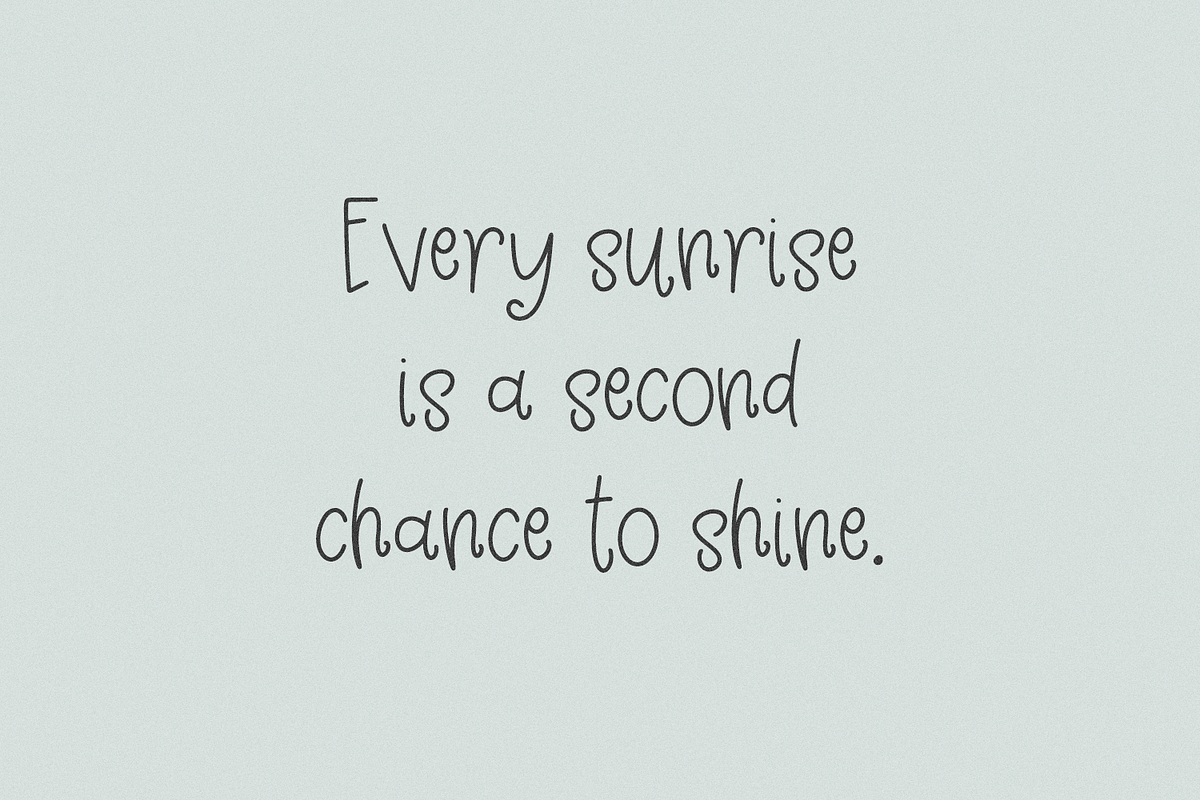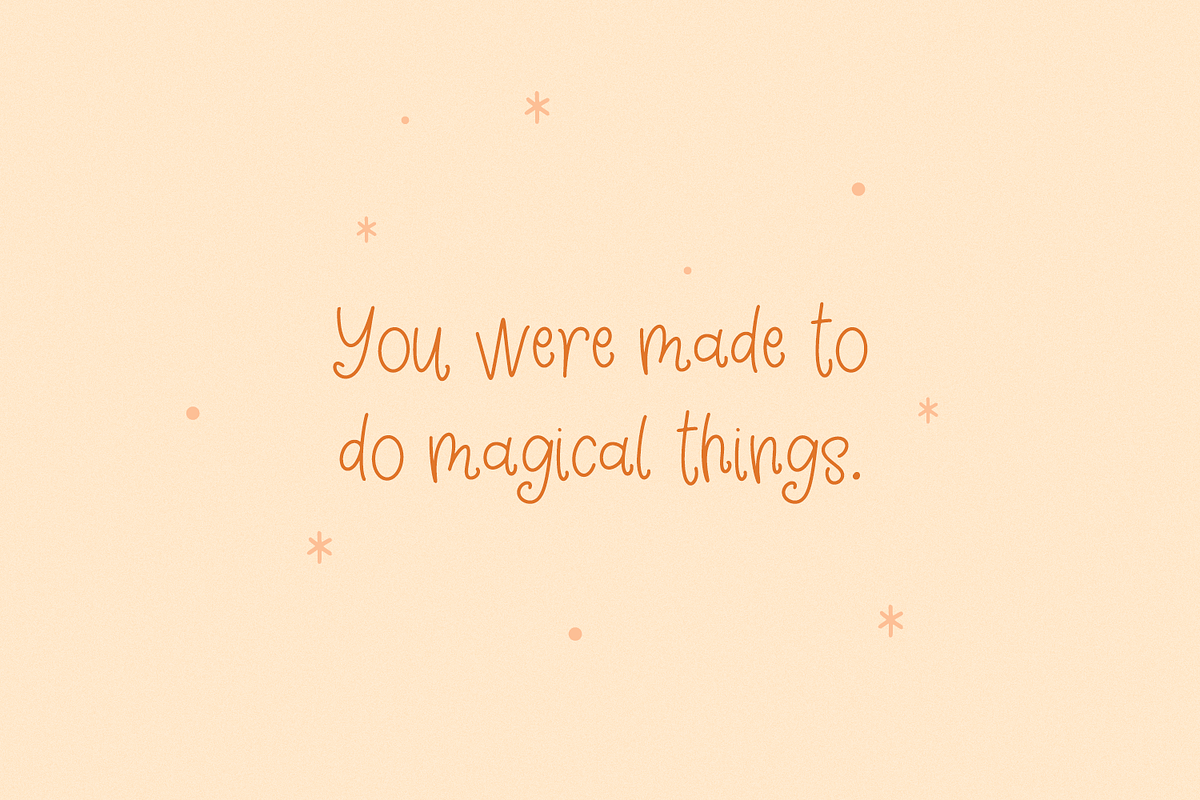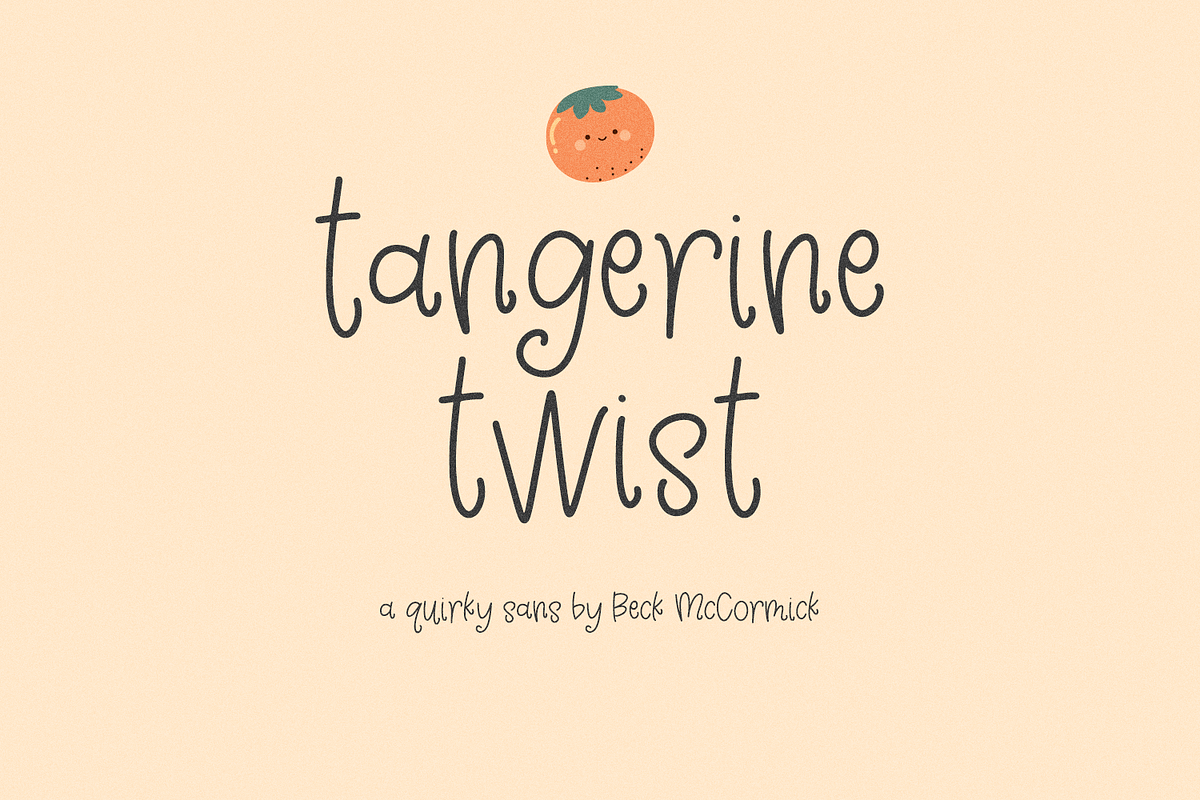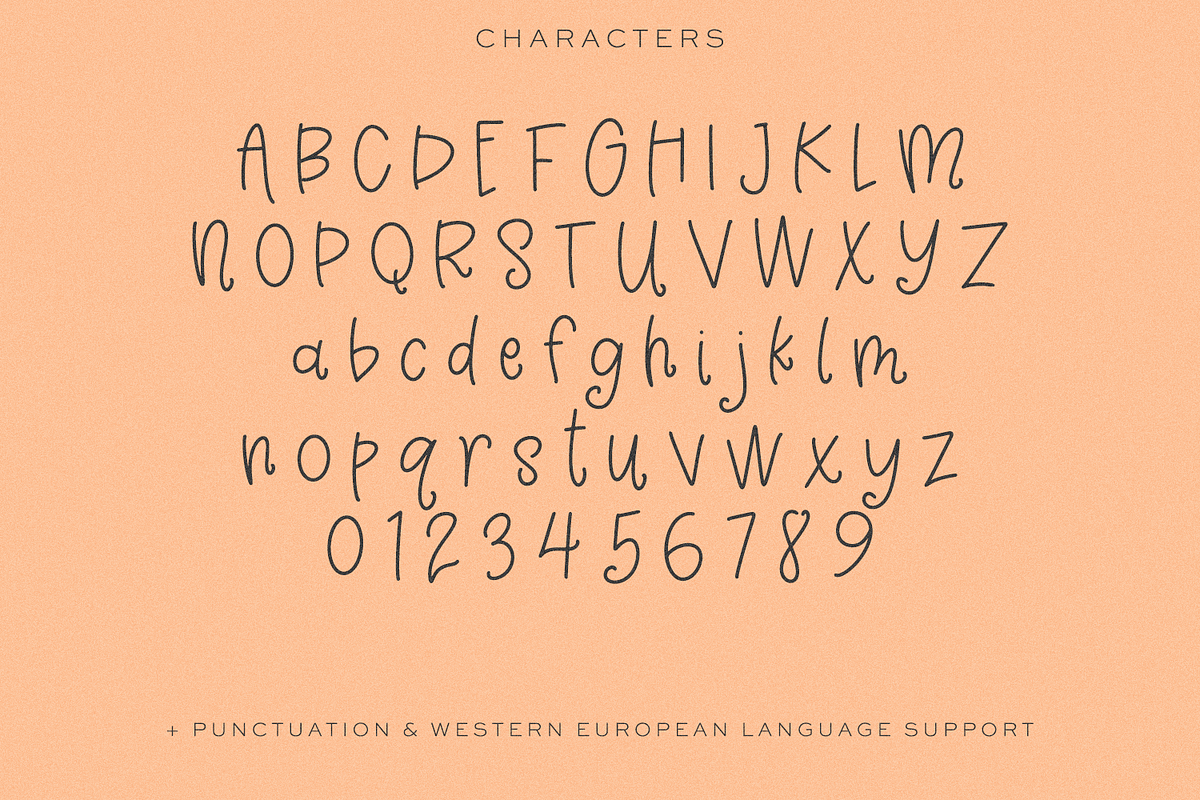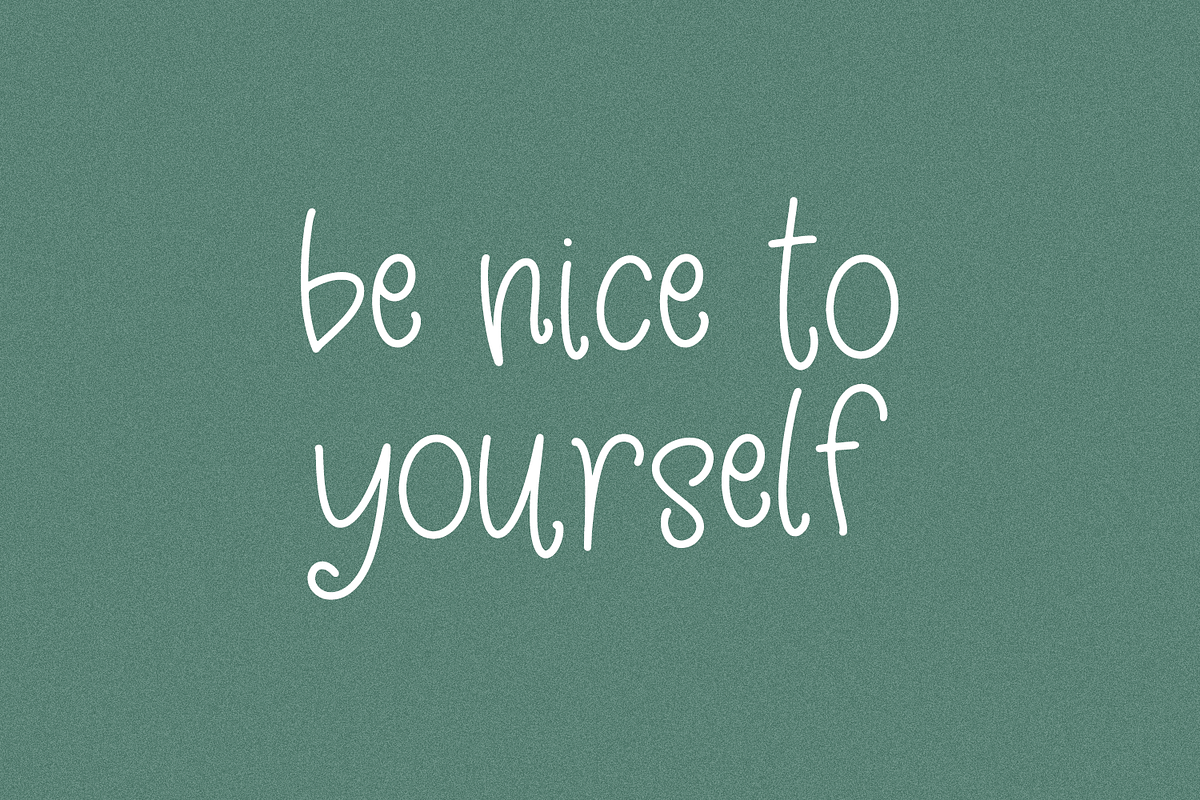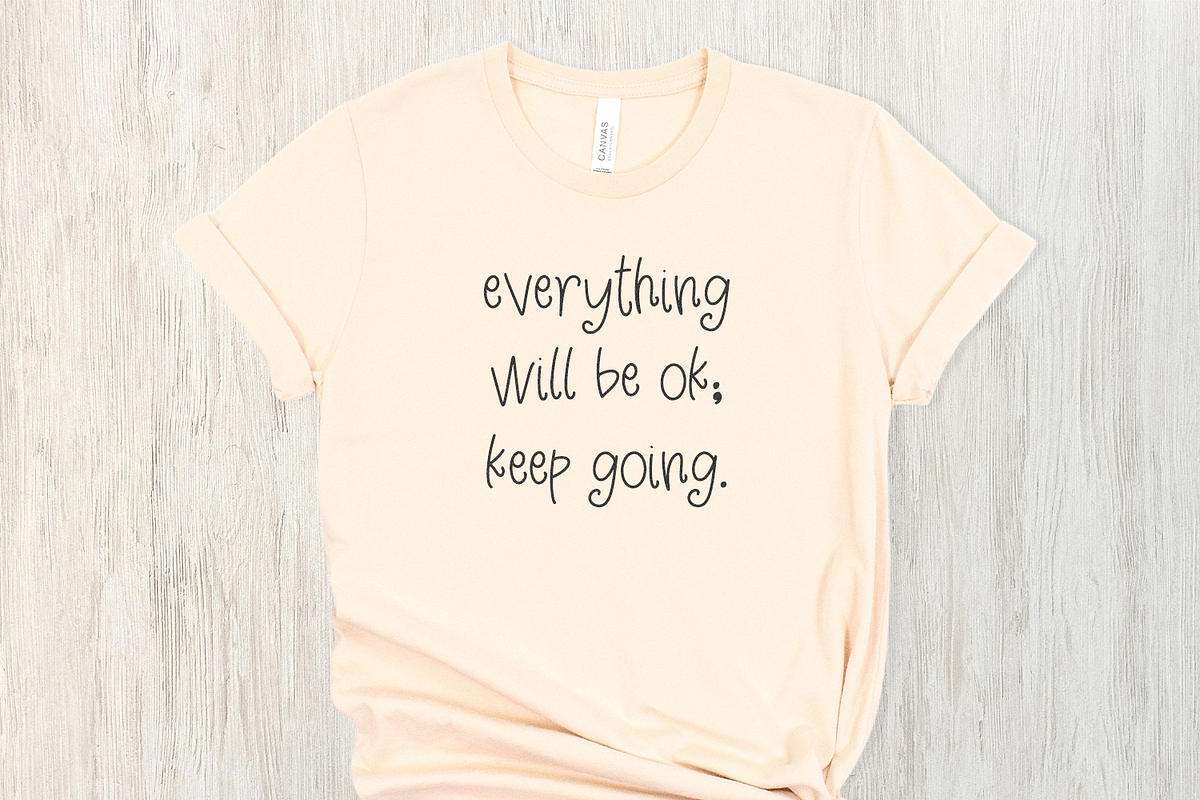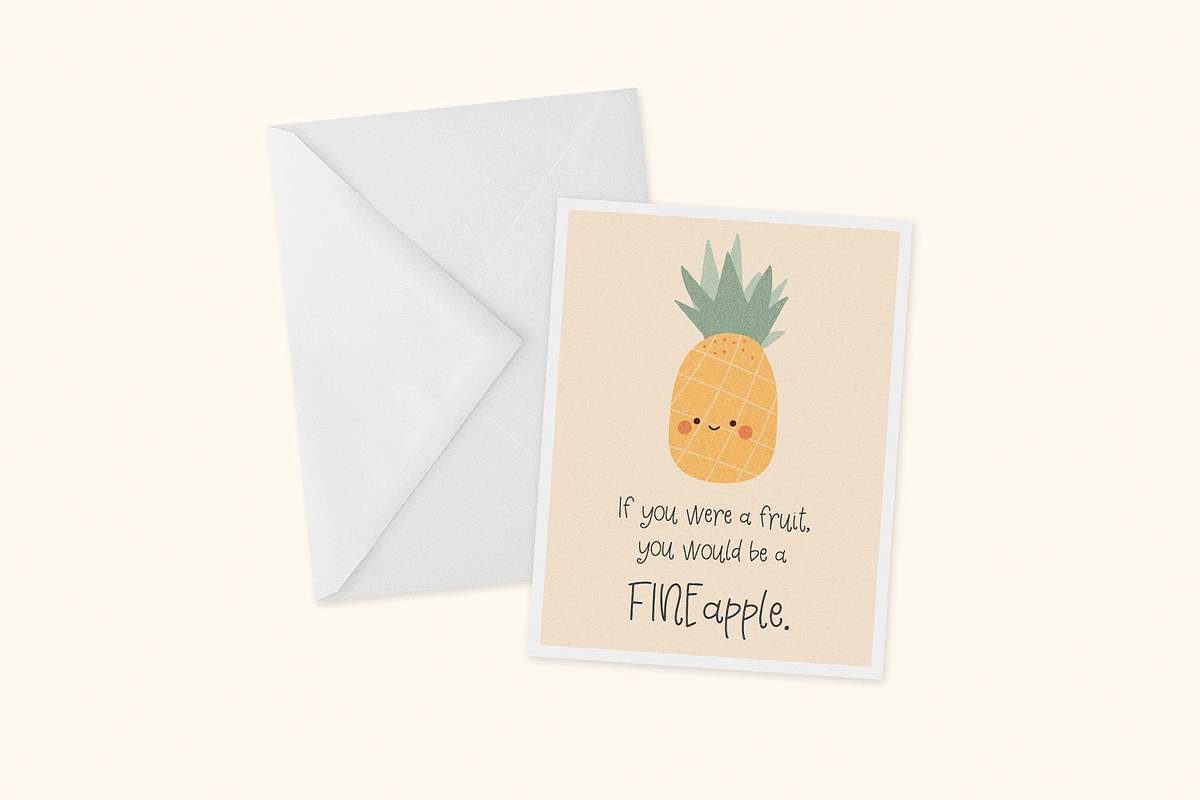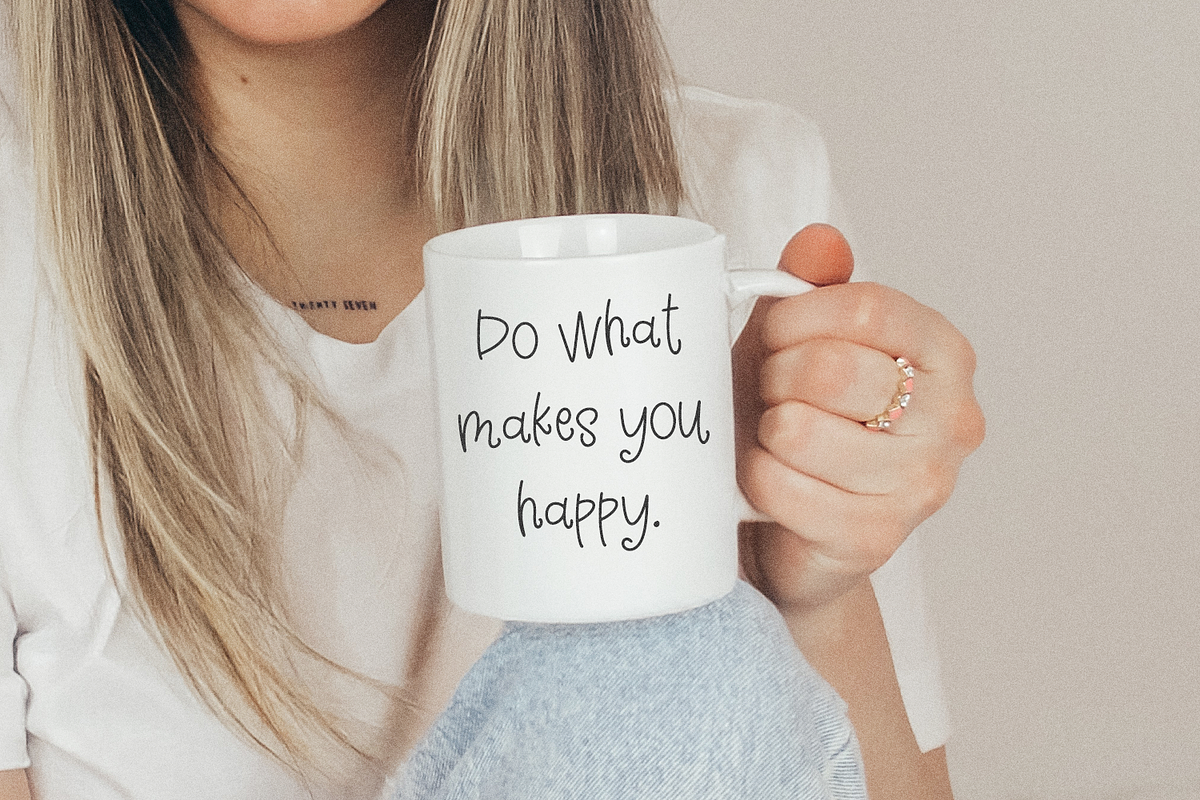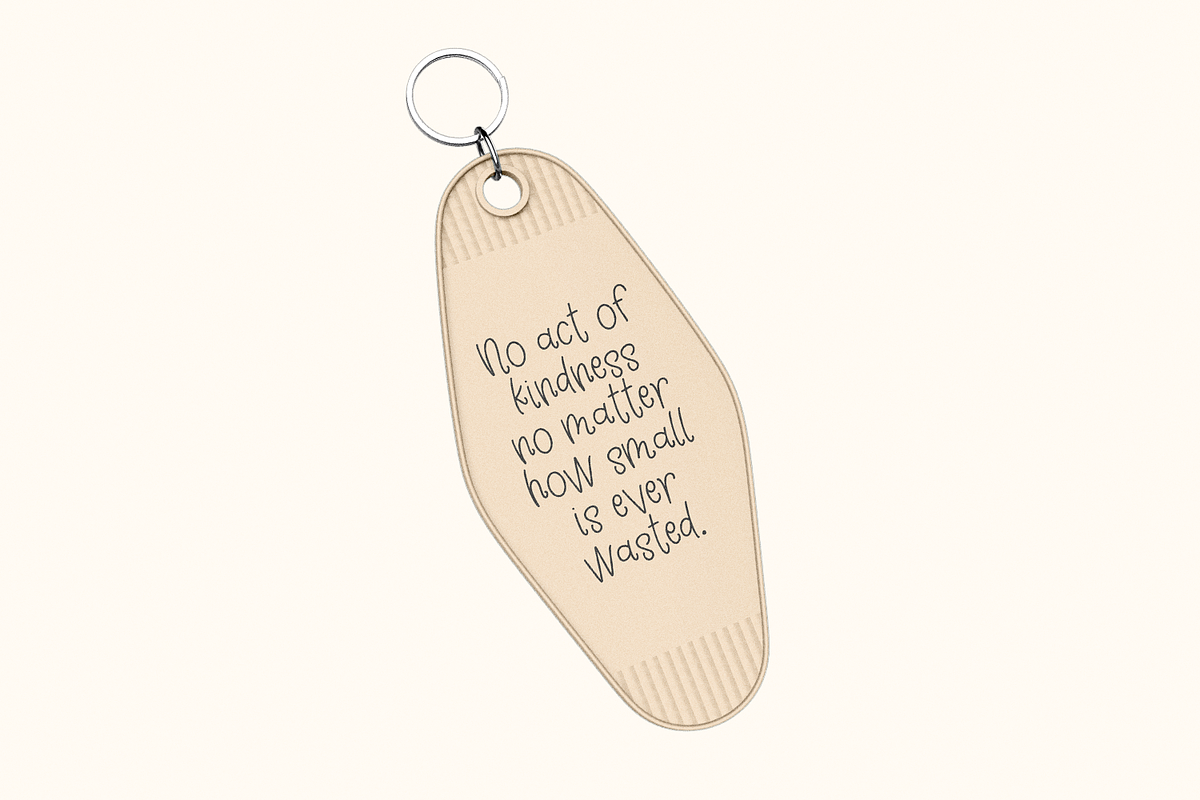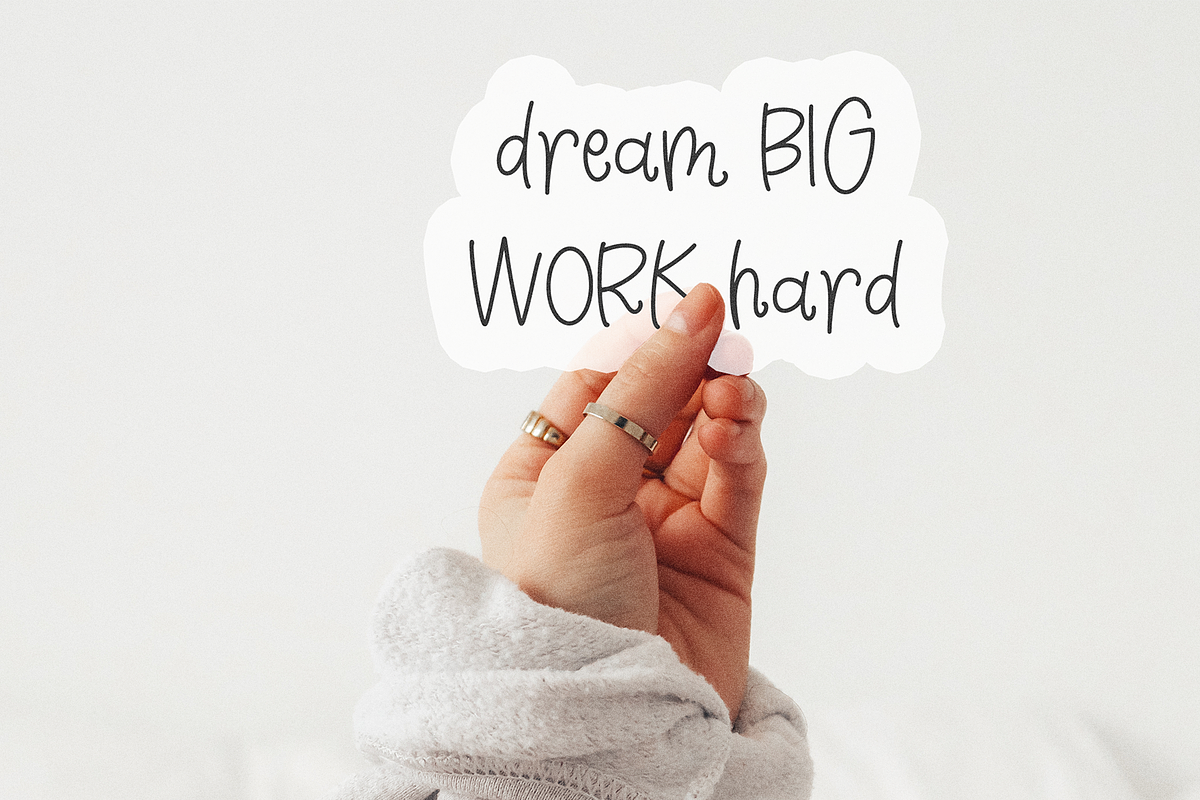
Tangerine Twist Sans
Tangerine Twist Sans is an adorable handwritten sans font. This font is neat & legible; it also features a slight bouncy and curl for some characters, making it very playful and positive. Tangerine Twist Sans is perfect for logos & branding, greeting cards, painted banners, digital planners, note-taking apps, Canva, Cricut projects, Silhouette projects, designing SVG files, laser cutting projects, & more.
- full upper + lowercase characters
- numbers + punctuation
- Western European language support - English, French, Spanish, Portuguese (Brazil), Portuguese (Portugal), Italian, German (Germany), German (Austria), Dutch, Danish, Swedish, Norwegian (Bokmål and Nynorsk), Finnish, Icelandic, Irish, Welsh